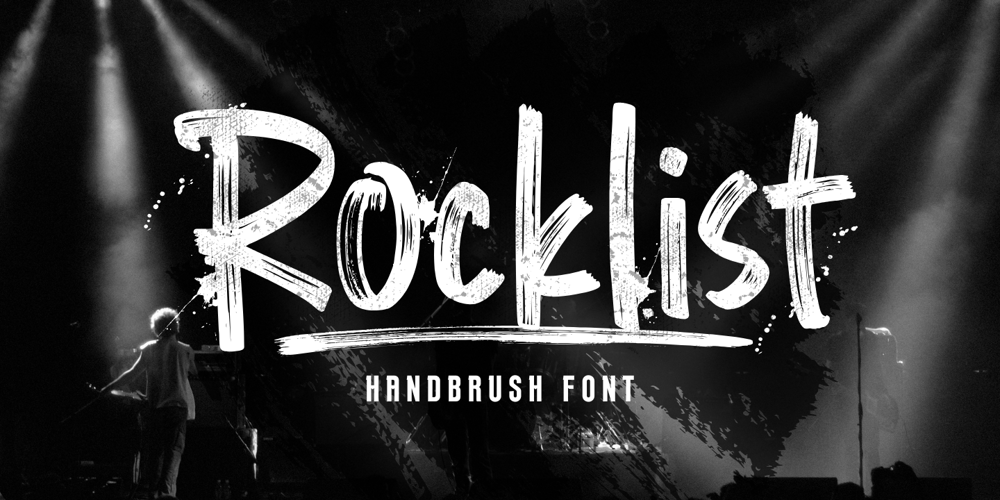
Rocklist Brush Font Family was designed by Muhamad Yusron Billah and published by Sronstudio. Rocklist Brush contains 1 styles and family package options. Rocklist Brush is a bold and dynamic brush font that brings a raw, artistic vibe to your designs. Perfect for posters, logos, branding, and creative projects, it adds a powerful and expressive touch. Let Rocklist Brush make your work stand out!Included: Upper & Lowercase Numeral & Punctuation PUA Encoded Multilingual support Simple Installation Work both on Mac and Windows Thank you very much ๐